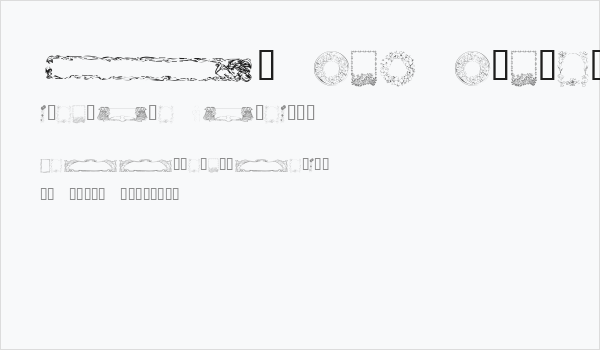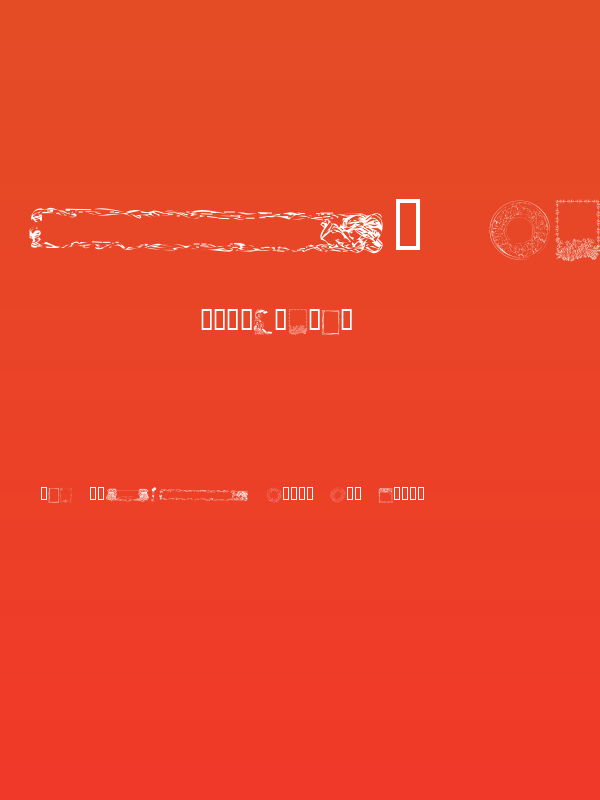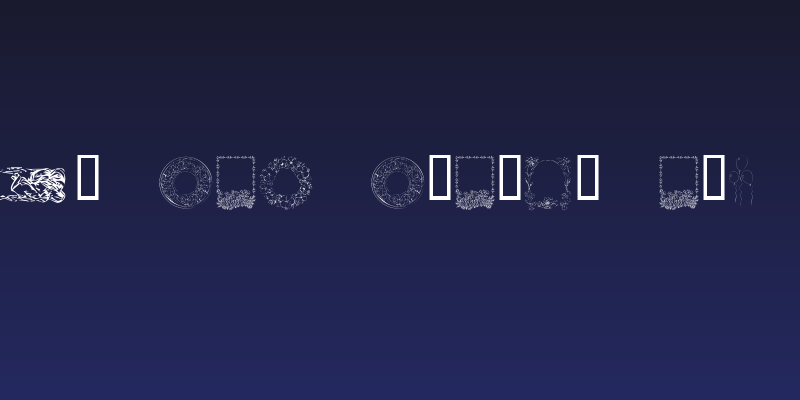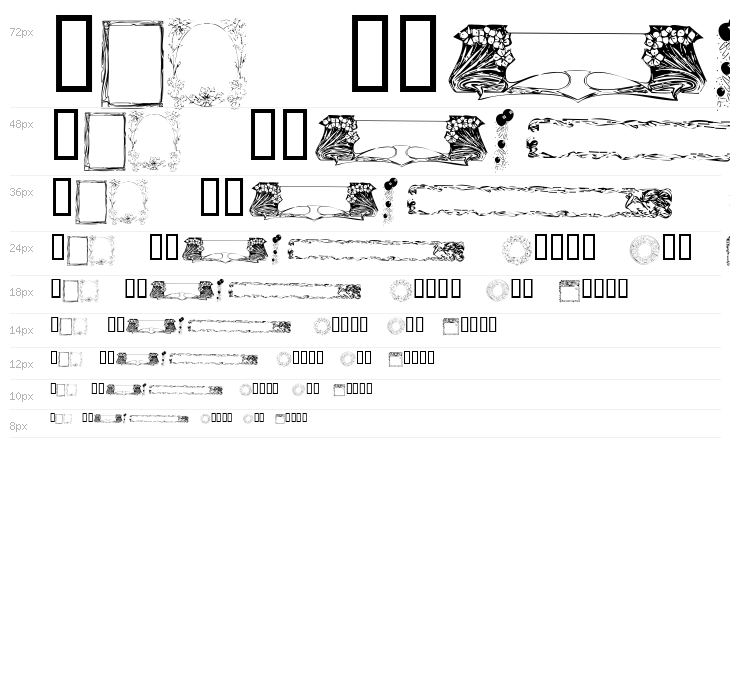
KR Fab Frames and Borders Font
KR Fab Frames and Borders Description
This set features a collection of decorative frames and borders, each uniquely designed with intricate patterns and motifs. The elements are highly detailed, showcasing a variety of styles from ornate and classical to more modern and streamlined designs. These frames and borders are perfect for adding a touch of elegance and sophistication to any project. The collection includes a diverse range of shapes and sizes, allowing for versatile application in both digital and print media. The intricate detailing in each design highlights the craftsmanship and creativity involved, making them suitable for high-end design projects.
| Use Case | Decorative elements, Invitations, Certificates |
| Proposed Projects | Ideal for invitations, certificates, digital scrapbooking, and decorative design elements in print and digital media. |